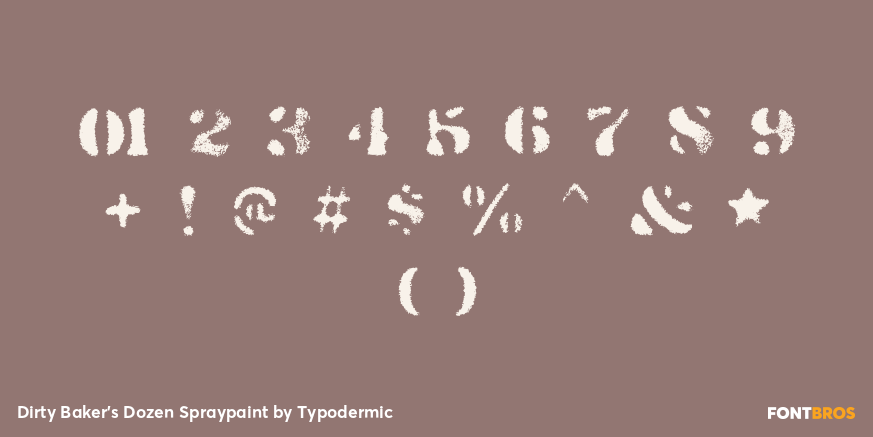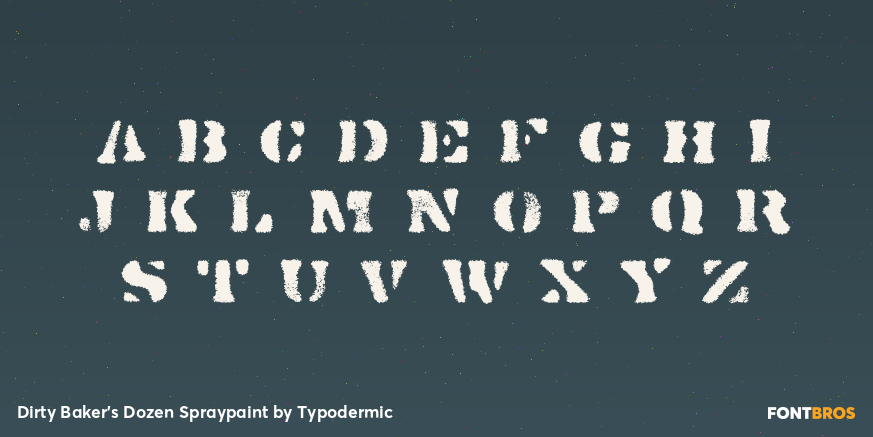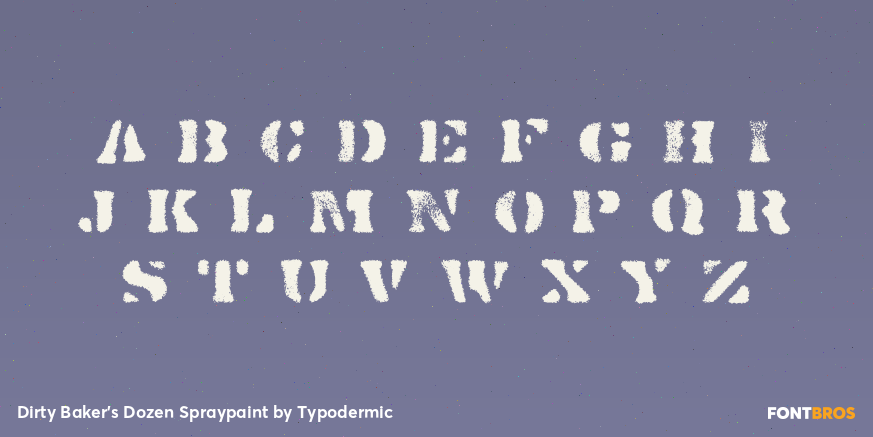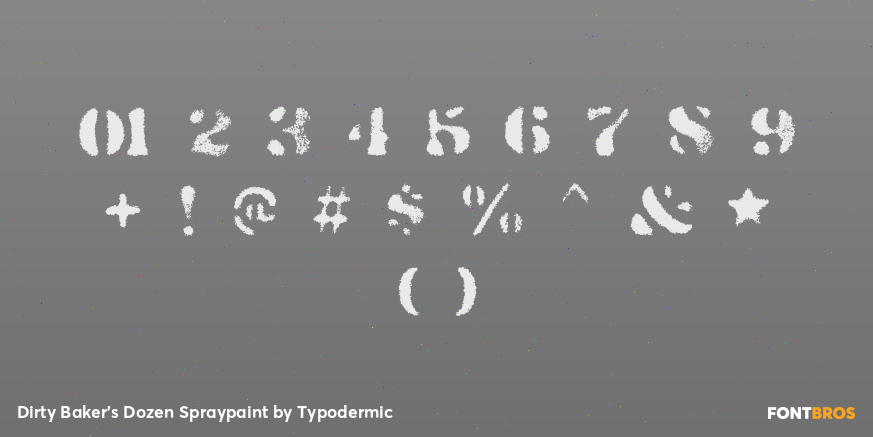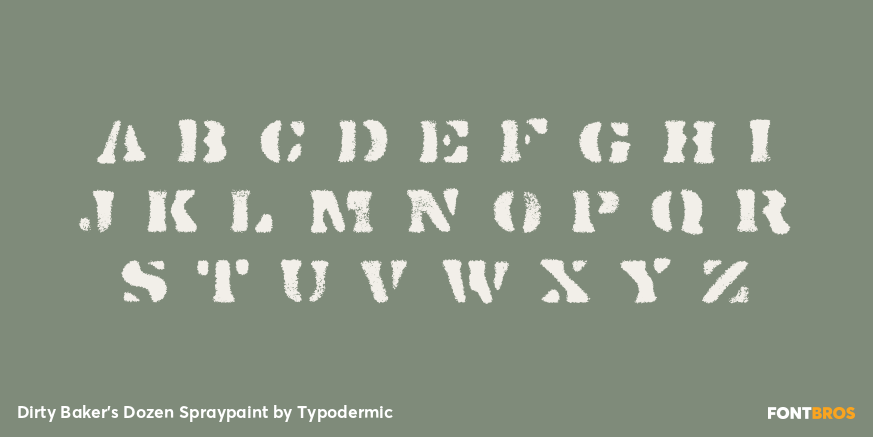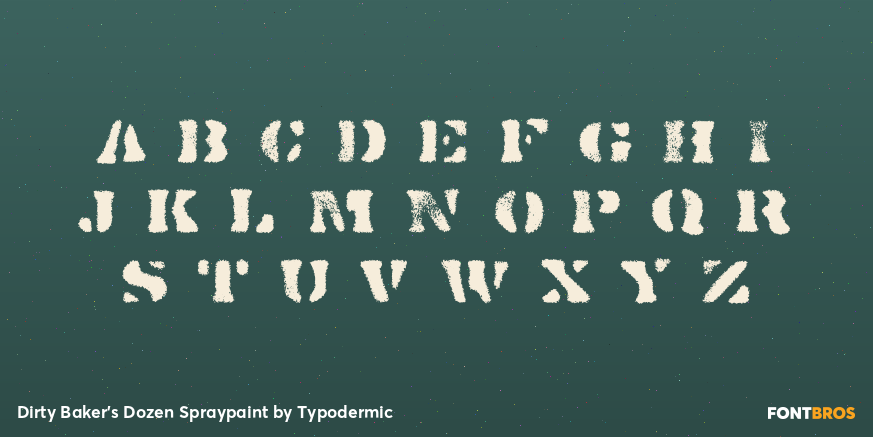
Dirty Baker's Dozen Spraypaint
Buy NowDirty Baker’s Dozen Spraypaint turns the family’s all-capital stencil into a rough painted marking. Soft overspray, uneven fill, and changing letter combinations make words feel applied through a worn template rather than rendered from perfectly repeated digital shapes.
Use Spraypaint for faction names, supply crates, vehicle markings, impound graphics, protest placards, race-course identifiers, workshop storage, and stage backdrops. It is the improvised state of the family: Regular handles the official identity, Scorch shows deterioration, and Spraypaint looks like the name has been put back onto the surface with whatever paint was available.